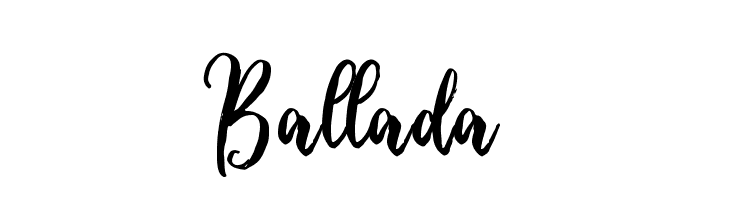
A playful, hand-drawn font with bold, irregular strokes and a whimsical style.
A dynamic, flowing script font with elegant, cursive letterforms and a consistent italic slant.
A dynamic, expressive handwritten font with fluid strokes and artistic flair.
A sophisticated script font with elegant, flowing cursive strokes.